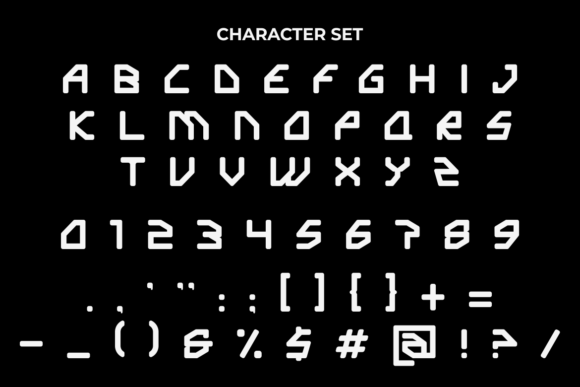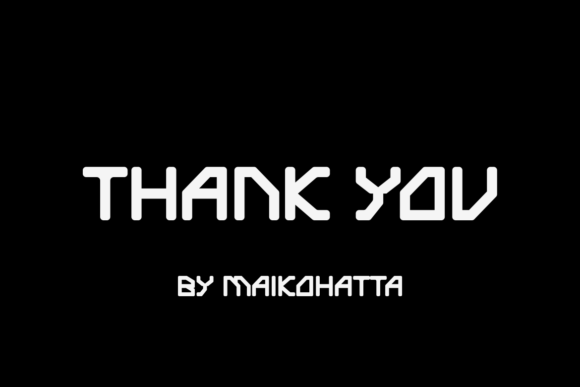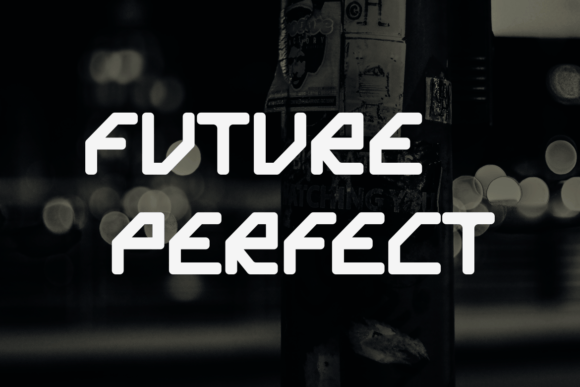
**GRAIZEL FONT** – Elevate Your Design with a Modern Bold Display Font
In the realm of typography, a font can make or break a design. For designers and crafters looking to leave a lasting impression, **Graizel Font** emerges as a game-changer. This modern font is not just a style; it’s a statement. With its bold and authentic display, Graizel Font is perfect for a wide array of branding projects, including logos, template designs, esports, and much more. Let’s dive into what makes Graizel Font an indispensable tool in your design arsenal.
The Essence of Graizel Font
**Graizel Font** is crafted to stand out. Its bold and authentic design ensures that your message is not just seen but felt. This font is not just about aesthetics; it’s about making an impact. Whether you’re working on a logo that needs to capture the essence of your brand or a template design that requires a touch of modernity, Graizel Font is up to the task.
One of the key advantages of **Graizel Font** is its versatility. It’s not limited to a specific context or industry. Here are a few ways you can utilize Graizel Font:
- Logo Design: Create a memorable brand logo that stands out from the competition.
- Template Design: Enhance your templates with a modern touch that appeals to a wide audience.
- Esports: The bold and modern aesthetic of Graizel Font makes it perfect for esports branding, including team logos, jerseys, and marketing materials.
- Branding Projects: From business cards to billboards, Graizel Font can elevate any branding project.
Why Choose Graizel Font?
Choosing **Graizel Font** for your design projects comes with several benefits:
- Uniqueness: Graizel Font offers a unique style that can set your brand apart.
- Legibility: Despite its boldness, the font maintains high legibility, ensuring your message is always clear.
- Flexibility: It can be used across various platforms and design materials.
- Modern Appeal: Graizel Font has a contemporary look that can make your designs appear fresh and modern.
How to Use Graizel Font Effectively
To maximize the potential of **Graizel Font**, consider the following tips:
- Pair it Wisely: Combine Graizel Font with complementary fonts to create visual interest.
- Consider Contrast: Use contrasting colors to make your text stand out.
- Experiment with Sizes: Play with different font sizes to emphasize certain parts of your message.
- Keep it Simple: Don’t overcrowd your design. Let Graizel Font be the focal point.
**Graizel Font** is more than just a font; it’s a design solution. Its bold and authentic display makes it an excellent choice for designers and crafters looking to make a statement. With its versatility, legibility, and modern appeal, Graizel Font can elevate your branding projects to new heights. Whether you’re designing a logo, a template, or anything in between, Graizel Font is a tool that can help you achieve your creative vision. So, why settle for ordinary when you can make a statement with **Graizel Font**?